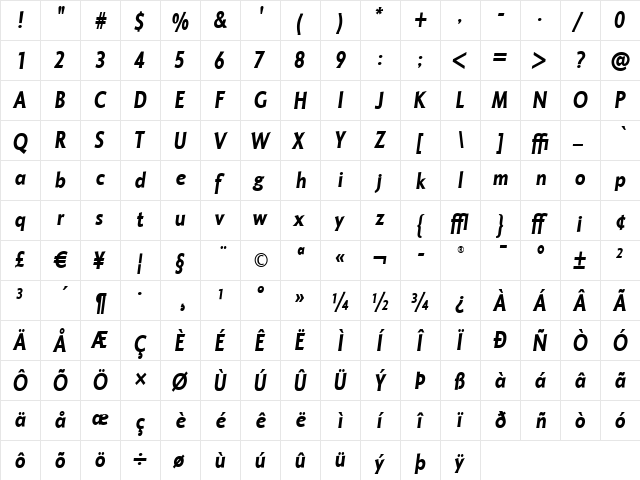
Octone ITC Bold Italic
Design Context for Octone ITC Typeface
Octone ITC is a composed and adaptable typeface that performs quietly and consistently across a wide range of design contexts. The slanted form adds forward momentum and visual energy. Its bold stroke weight gives it real presence on the page.